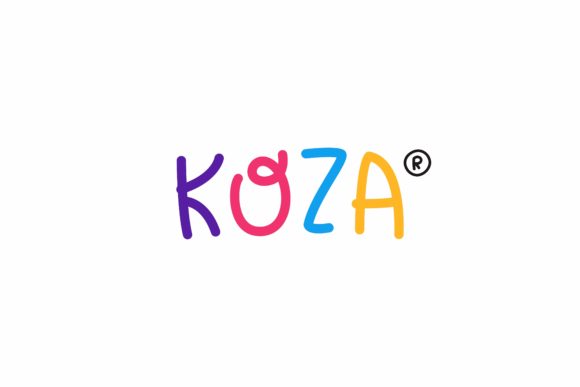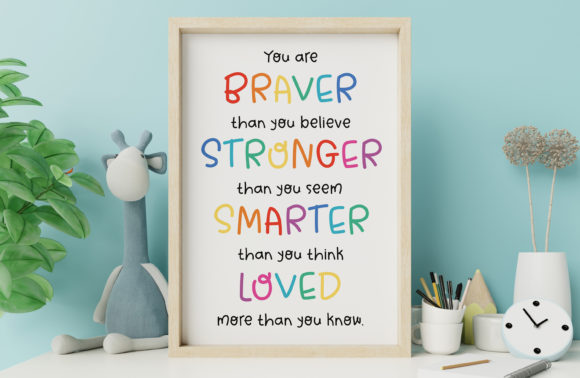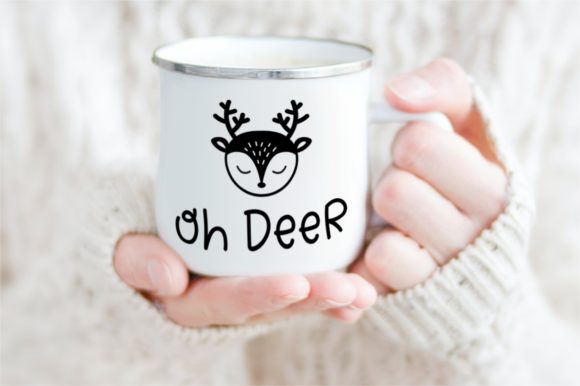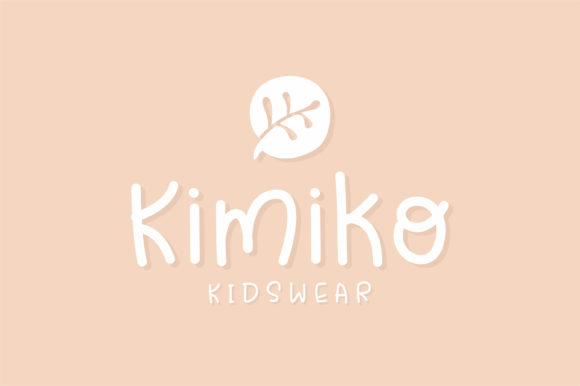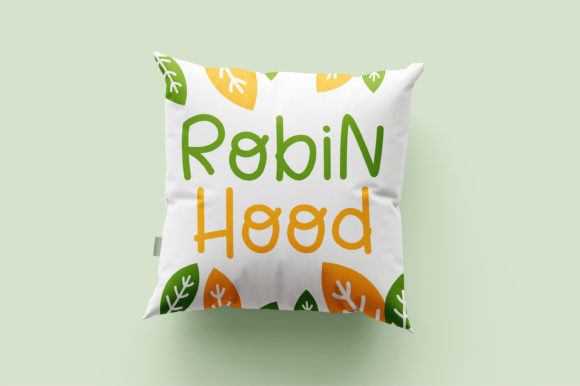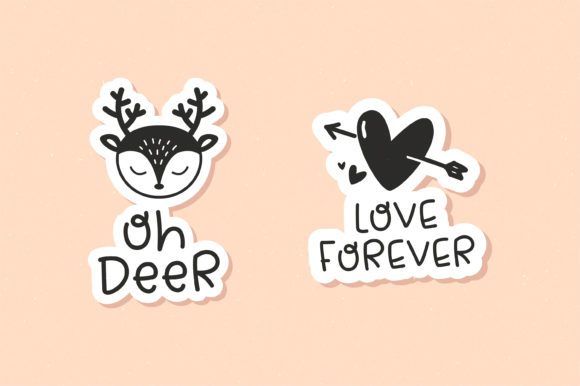
Introduction to Look and Smile Font
Have you ever been working on a creative project, and suddenly you’re stuck on finding the perfect font to bring your idea to life? It’s a frustrating feeling, but don’t worry, we’ve all been there. That’s why we’re excited to share with you a new design resource that’s sure to brighten up your day: the Look and Smile Font.
This adorable handwritten font is more than just a pretty face – it’s a game-changer for designers. With its whimsical and quirky feel, it adds a touch of personality to any design, making it perfect for projects that need a little extra oomph. And the best part? It’s available for free download, so you can start experimenting with it right away.
Key Features of Look and Smile Font
- High-quality design for creative projects, suitable for various applications such as logos, graphics, and more.
- Perfect for designers and artists seeking a unique and eye-catching font to elevate their creative project and leave a lasting impression.
- High-resolution design, ideal for printing and digital use, ensuring your design looks great in various mediums and resolutions.
Honest Review: Look and Smile Font
As a designer, I’m always on the lookout for high-quality design resources to elevate my creative projects. I recently came across the Look and Smile Font, and I’m excited to share my thoughts with you.
- Unique and playful design: The Look and Smile Font is perfect for adding a touch of whimsy to your designs.
- High-quality glyphs: The font is well-designed and has a professional feel to it.
One of the standout features of this font is its transparent background, which makes it easy to use in a variety of design contexts.
- Limited language support: The font only supports a limited number of languages, which may be a concern for designers working on international projects.
- Not suitable for formal designs: While the font is great for playful designs, it may not be the best choice for formal or professional projects.
Overall, I’m impressed with the Look and Smile Font and would recommend it to designers working on creative projects. While it has some limitations, it’s a great addition to any design resource library.
The Look and Smile Font is a high-quality design resource perfect for creative projects. This free download offers a transparent background, making it easy to integrate into various design platforms.
For optimal results, use the Look and Smile Font in combination with other design elements to create a cohesive look. Experiment with different font sizes, colors, and styles to enhance your design.
The Look and Smile Font is perfect for various creative projects, including:
- Marketing materials (brochures, flyers, business cards)
- Print materials (posters, stickers, labels)
Alternatives to Look and Smile Font
Alex Brush Font is a high-quality, handwritten font ideal for creative projects that require a personal touch. It features a transparent background and is available for free download, making it a valuable design resource. Use Alex Brush Font for projects that require a unique, artistic feel.
Compared to Look and Smile Font, Alex Brush Font offers a more elegant and sophisticated look, making it suitable for projects that require a higher level of sophistication.
Great Vibes Font is a fun, cursive font that exudes a carefree and playful vibe. It’s perfect for design projects that require a light-hearted and energetic feel. Great Vibes Font is available for free download and features a transparent background, making it a great design resource.